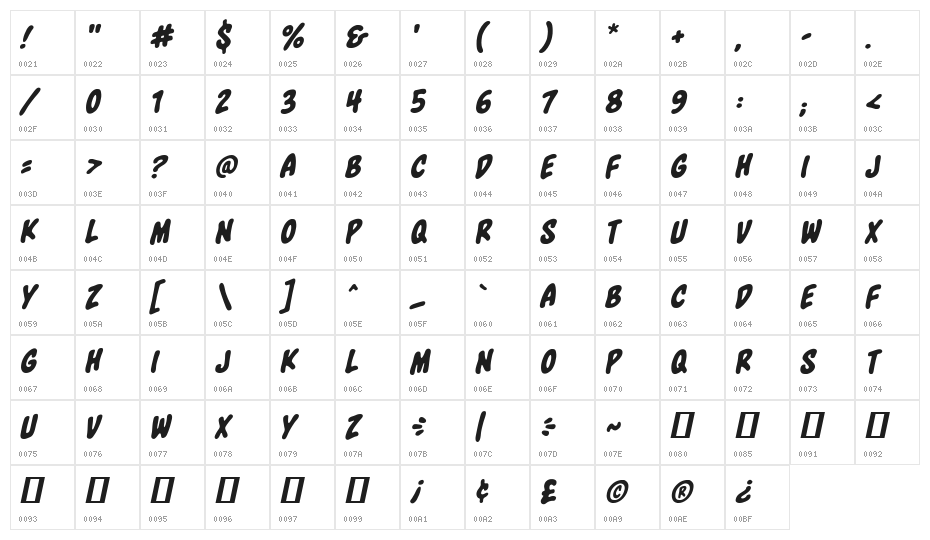
Blowhole BB Italic Font
Blowhole BB Italic Description
This font features a bold and playful style with a strong presence. The characters are rounded and have a slightly slanted, italicized appearance, giving them a dynamic and energetic feel. The strokes are thick and consistent, contributing to a cohesive and robust look. The font maintains a uniform width across all characters, ensuring readability while adding a touch of whimsy. Its bold nature makes it stand out, making it ideal for attention-grabbing designs. The spacing between characters is tight, which enhances its compact and impactful style.
| Overall Style | Playful and Energetic |
| Proposed Projects | Perfect for branding, posters, headlines, and any project requiring a fun and bold statement. |